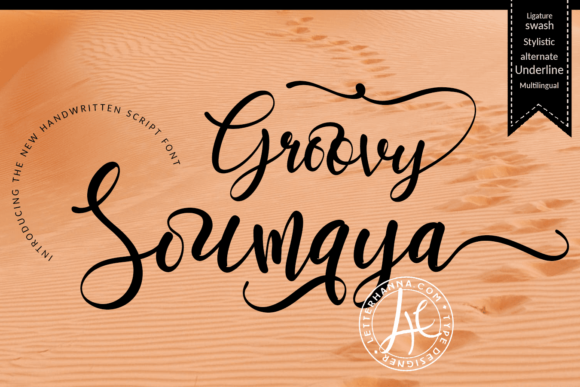
Groovy Soumaya Font: Elevate Your Designs with Elegance and Sophistication
Are you looking for a font that can add a touch of elegance and sophistication to your designs? Look no further than the Groovy Soumaya Font. This beautiful and flowing handwritten font is perfect for a wide range of projects, from wall displays and wedding invitations to social media posts, logos, advertisements, product packaging, and more.
What Makes Groovy Soumaya Font Special?
- Beautiful and Flowing Handwritten Style: The Groovy Soumaya Font boasts a stunning handwritten style that is both elegant and flowing. Its unique and artistic design makes it perfect for projects that require a personal touch.
- Versatile Uses: This font is incredibly versatile and can be used for a wide range of projects, including wall displays, wedding invitations, social media posts, logos, advertisements, product packaging, product designs, labels, photography, watermarks, invitations, stationery, and more.
- PUA Encoded: The Groovy Soumaya Font is PUA encoded, which means you can access all of the amazing glyphs and ligatures with ease. This makes it easy to use and customize the font to suit your needs.
10 Creative Ways to Use Groovy Soumaya Font
- Wall Displays: Use the Groovy Soumaya Font to create stunning wall displays that are sure to grab attention. Whether you’re designing a poster, a banner, or a sign, this font is sure to make your message stand out.
- Wedding Invitations: Make your wedding invitations truly special with the Groovy Soumaya Font. This font is perfect for creating beautiful and elegant invitations that will set the tone for your big day.
- Social Media Posts: Add a touch of elegance and sophistication to your social media posts with the Groovy Soumaya Font. Whether you’re posting on Instagram, Facebook, or Twitter, this font is sure to make your content stand out.
- Logos: Use the Groovy Soumaya Font to create stunning logos that are sure to represent your brand. This font is perfect for businesses that want to convey a sense of elegance and sophistication.
- Advertisements: Make your advertisements truly effective with the Groovy Soumaya Font. This font is perfect for creating eye-catching ads that are sure to grab attention.
- Product Packaging: Use the Groovy Soumaya Font to create stunning product packaging that is sure to stand out on store shelves. This font is perfect for businesses that want to convey a sense of luxury and sophistication.
- Product Designs: Add a touch of elegance and sophistication to your product designs with the Groovy Soumaya Font. Whether you’re designing a product label, a brochure, or a catalog, this font is sure to make your content stand out.
- Labels: Use the Groovy Soumaya Font to create stunning labels that are sure to grab attention. This font is perfect for businesses that want to convey a sense of elegance and sophistication.
- Photography: Add a touch of elegance and sophistication to your photography with the Groovy Soumaya Font. Whether you’re creating a watermark or a caption, this font is sure to make your photos stand out.
- Stationery: Use the Groovy Soumaya Font to create stunning stationery that is sure to make a lasting impression. Whether you’re designing a business card, a letterhead, or an envelope, this font is perfect for businesses that want to convey a sense of elegance and sophistication.
Tips for Using Groovy Soumaya Font Effectively
- Use it Sparingly: While the Groovy Soumaya Font is stunning, it’s best to use it sparingly. Use it for headings or titles, and pair it with a simpler font for body text.
- Experiment with Colors: The Groovy Soumaya Font looks great in a variety of colors. Experiment with different colors to find the one that works best for your project.
- Pay Attention to Kerning: Make sure to pay attention to kerning when using the Groovy Soumaya Font. Adjust the spacing between letters to create a clean and elegant look.
The Benefits of Using Groovy Soumaya Font
- Elegant and Sophisticated: The Groovy Soumaya Font is elegant and sophisticated, making it perfect for projects that require a touch of luxury.
- Versatile: This font is incredibly versatile and can be used for a wide range of projects.
- Easy to Use: The Groovy Soumaya Font is PUA encoded, making it easy to use and customize.
- High-Quality: This font is of high quality, ensuring that it will look great in any project.
The Groovy Soumaya Font is a beautiful and flowing handwritten font that is perfect for a wide range of projects. Its elegant and sophisticated design makes it perfect for businesses and individuals who want to convey a sense of luxury and sophistication. With its versatility, ease of use, and high-quality design, the Groovy Soumaya Font is a great choice for anyone looking to elevate their designs.